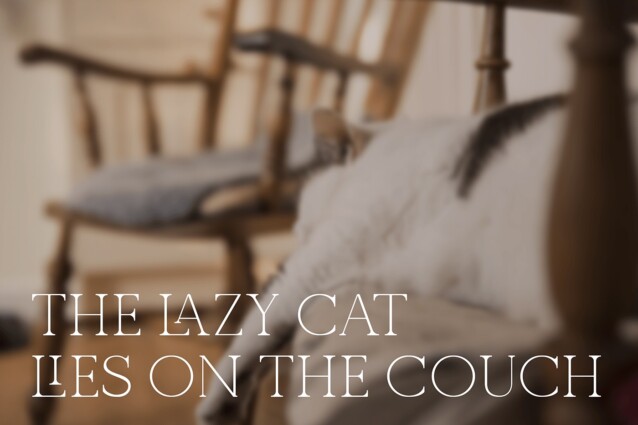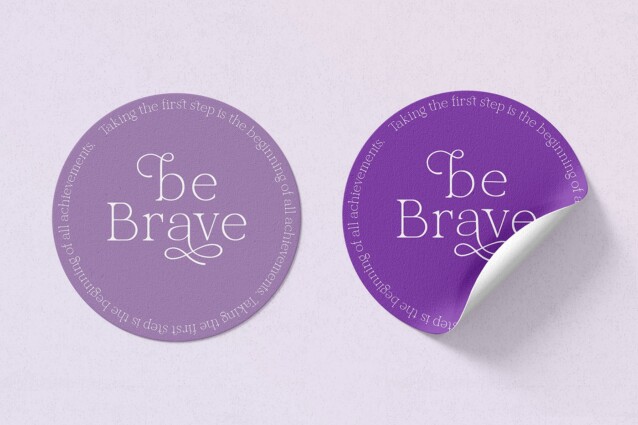
Actalou Font
Actalou Font is a modern and classic serif font that exudes nostalgia and elegance in equal measure. Suitable for any projects such as: logos, branding projects, homeware designs, product packaging, mugs, quotes, posters, shopping bags, t-shirts, book covers, name card, invitation cards, greeting cards, label, photography, watermark, special events, and all your other luxury and beautiful projects that need a modern serif font.